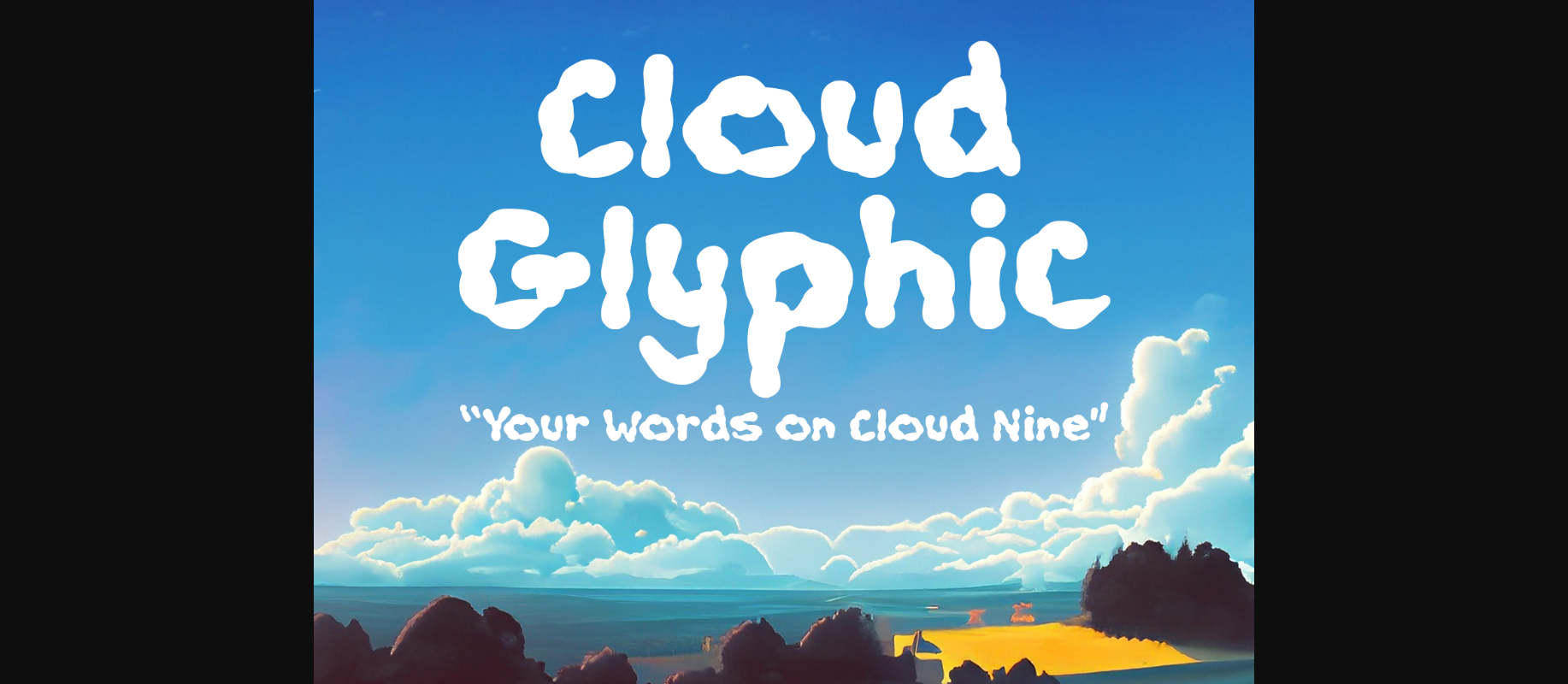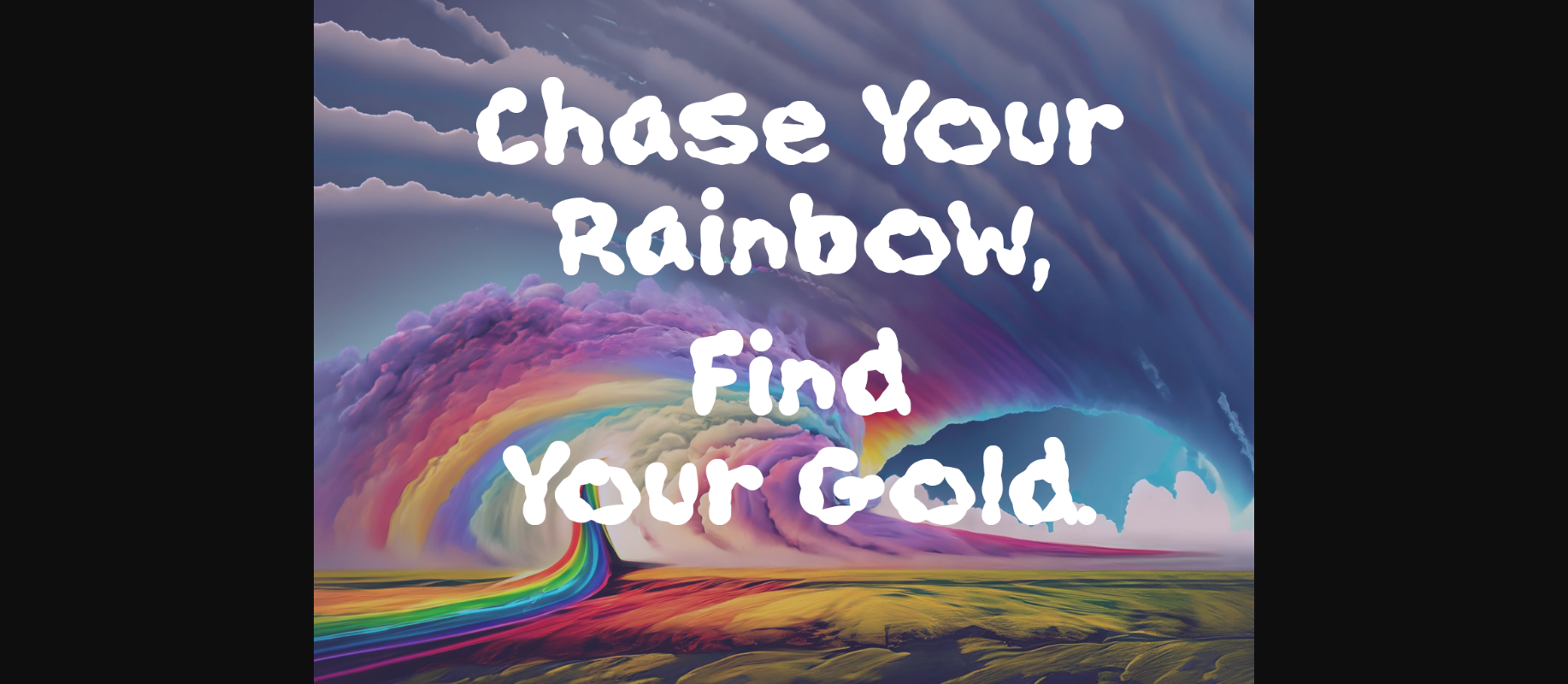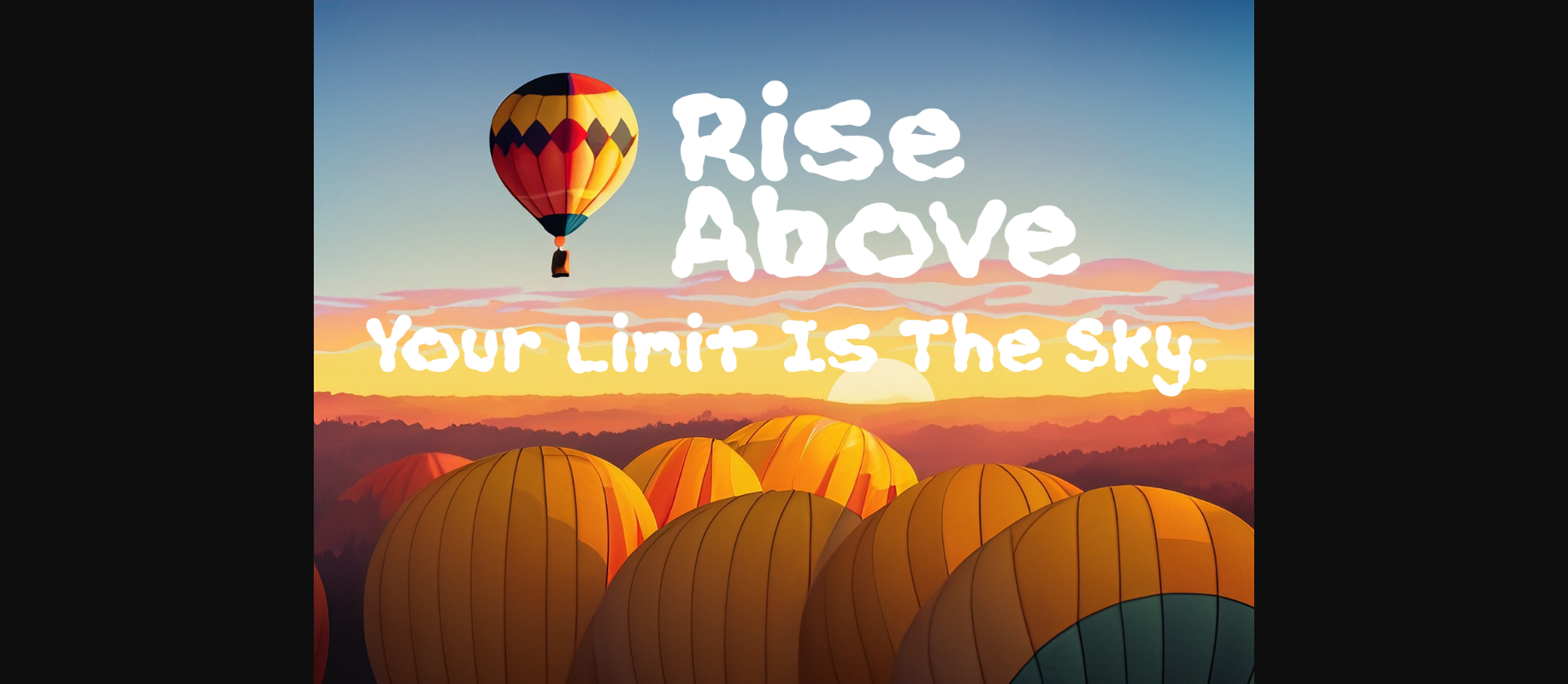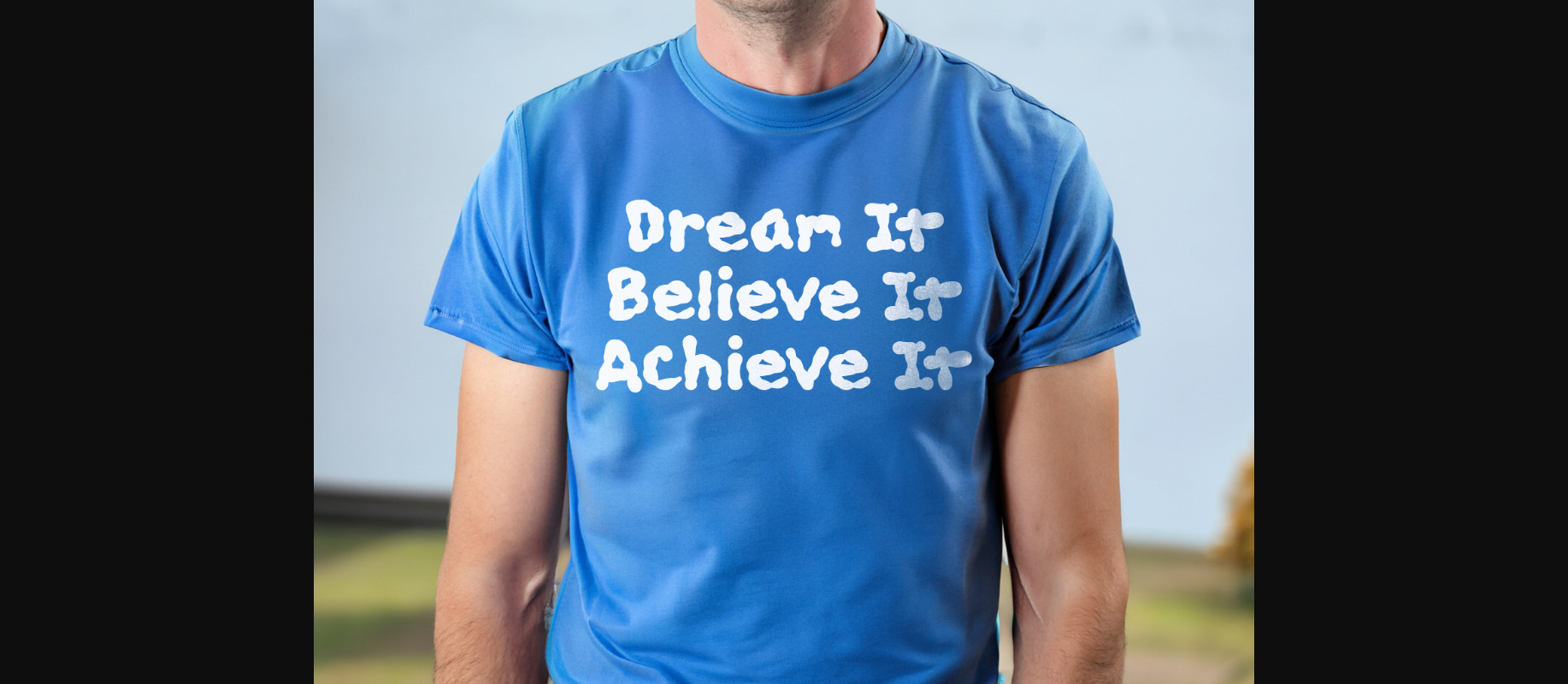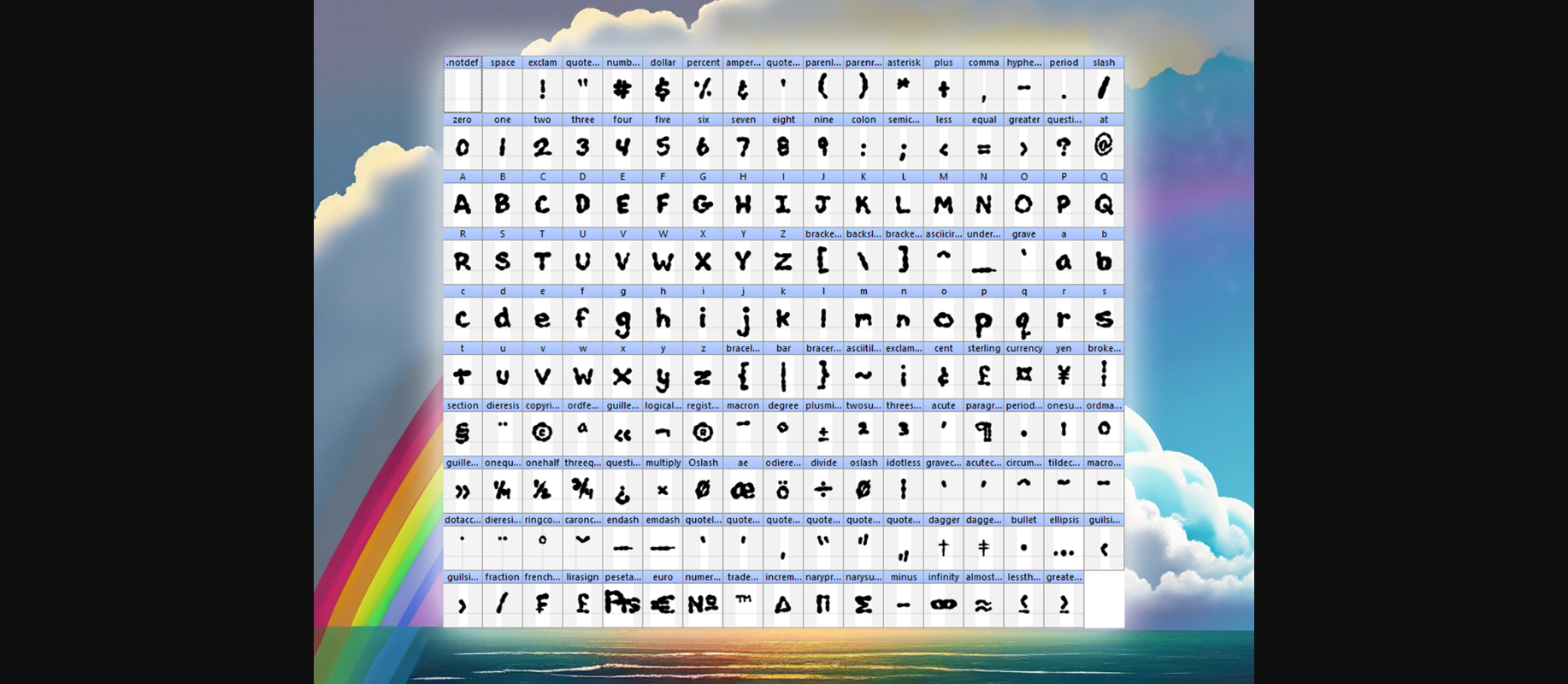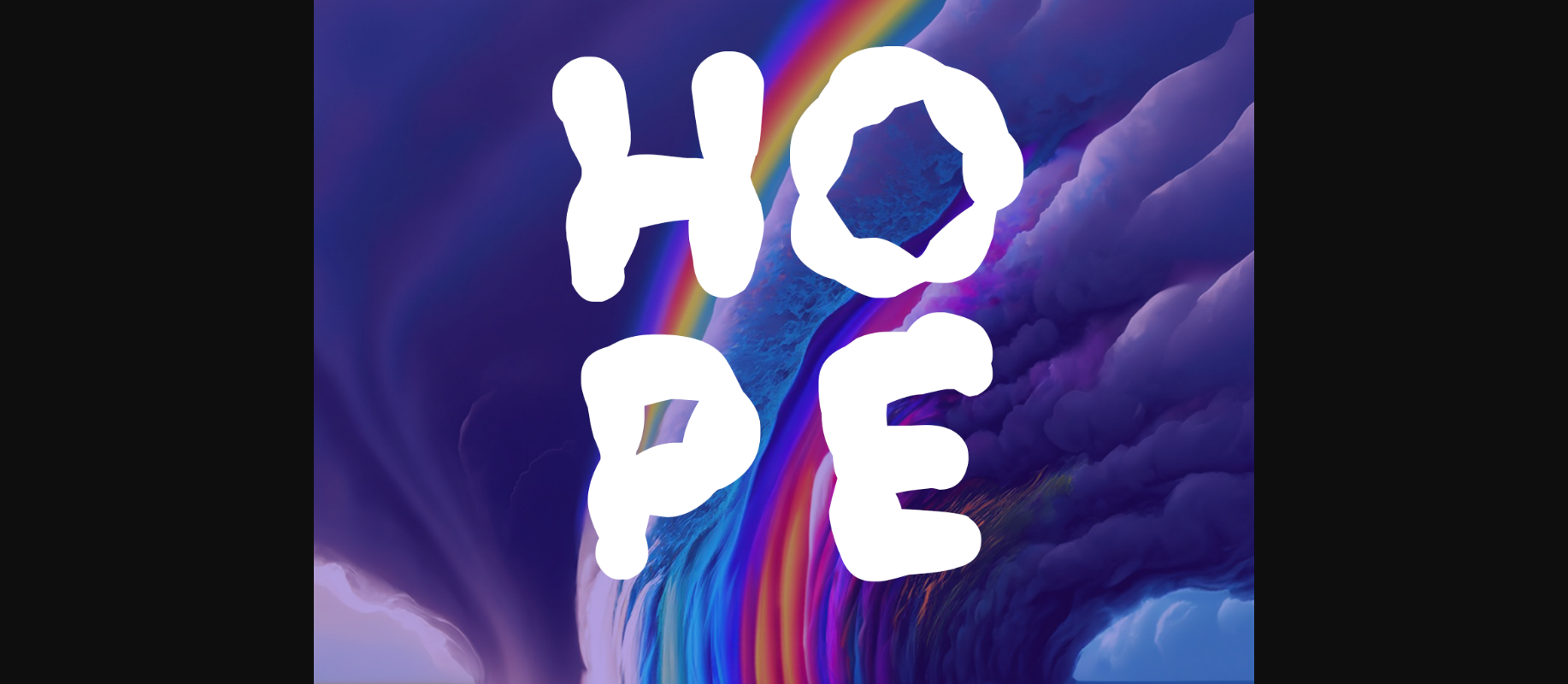
Cloudglyphic Font
About Cloudglyphic Font
CloudGlyphic: The Typeface That Makes Every Project Dreamy
CloudGlyphic—a font inspired by the sky, designed to elevate your art and crafts to the next level. Seamlessly blending artistic detailing with readability, CloudGlyphic offers more than just characters; it delivers an experience.
– Sky-High Aesthetics: Designed to mimic the natural ebb and flow of cloud formations, adding a dreamlike quality to your projects.
– Readability Meets Art: While being decorative, CloudGlyphic also offers exceptional readability, making it versatile for both text and headlines.
– Craft-Ready: Ideal for a range of craft projects—be it digital art, printables, or even textile prints.
Creative Uses:
– DIY Crafts: Perfect for scrapbooking, card-making, or even custom gifts.
– Graphic Design: Add a whimsical flair to everything from logos to social media graphics.
– Web Design: Improve the aesthetics of your website with headers and footers that capture attention.
– Special Events: Use it to create invitations that are as unique as your event—be it a wedding, baby shower, or a dreamy outdoor gathering.